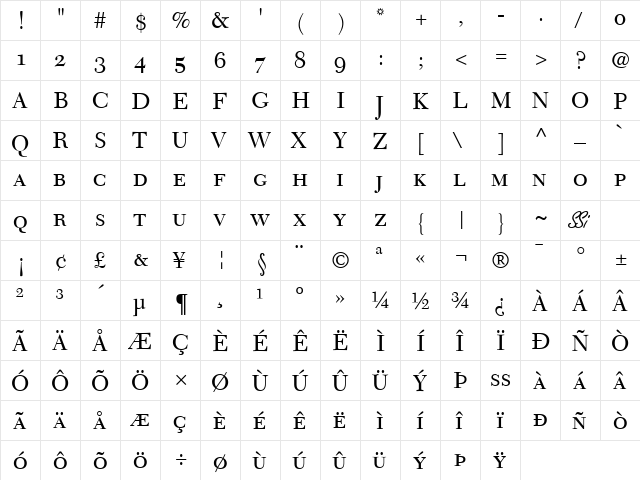
Tycoon Old Style SSi Small Caps
Design Context for Tycoon Old Style SSi Typeface
Tycoon Old Style SSi offers clean, dependable letterforms without strong stylistic allegiance, making it a practical choice for designers who need flexibility.
Pro Tip: Pair Tycoon Old Style SSi with a font of contrasting weight or personality to build a more expressive typographic hierarchy.